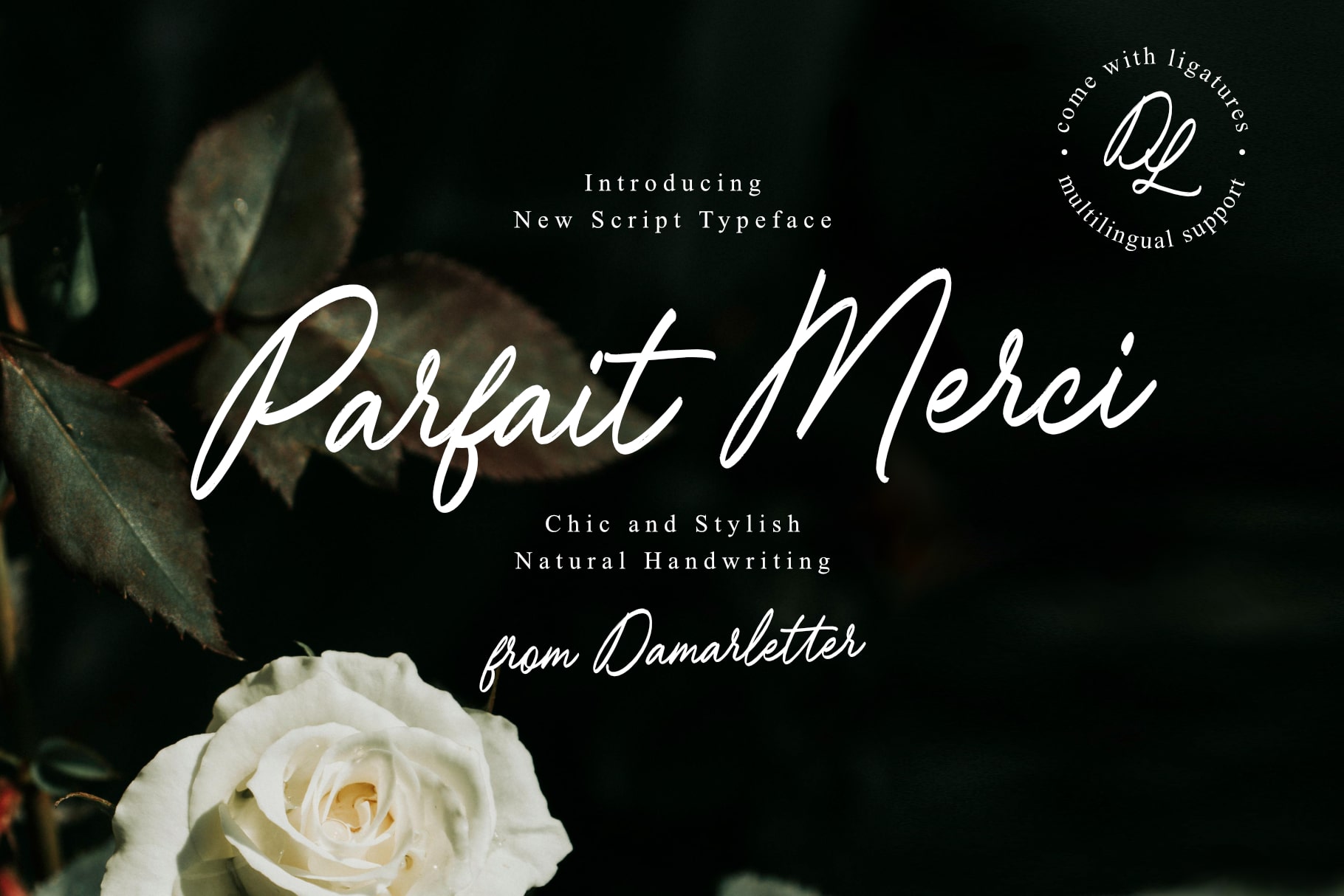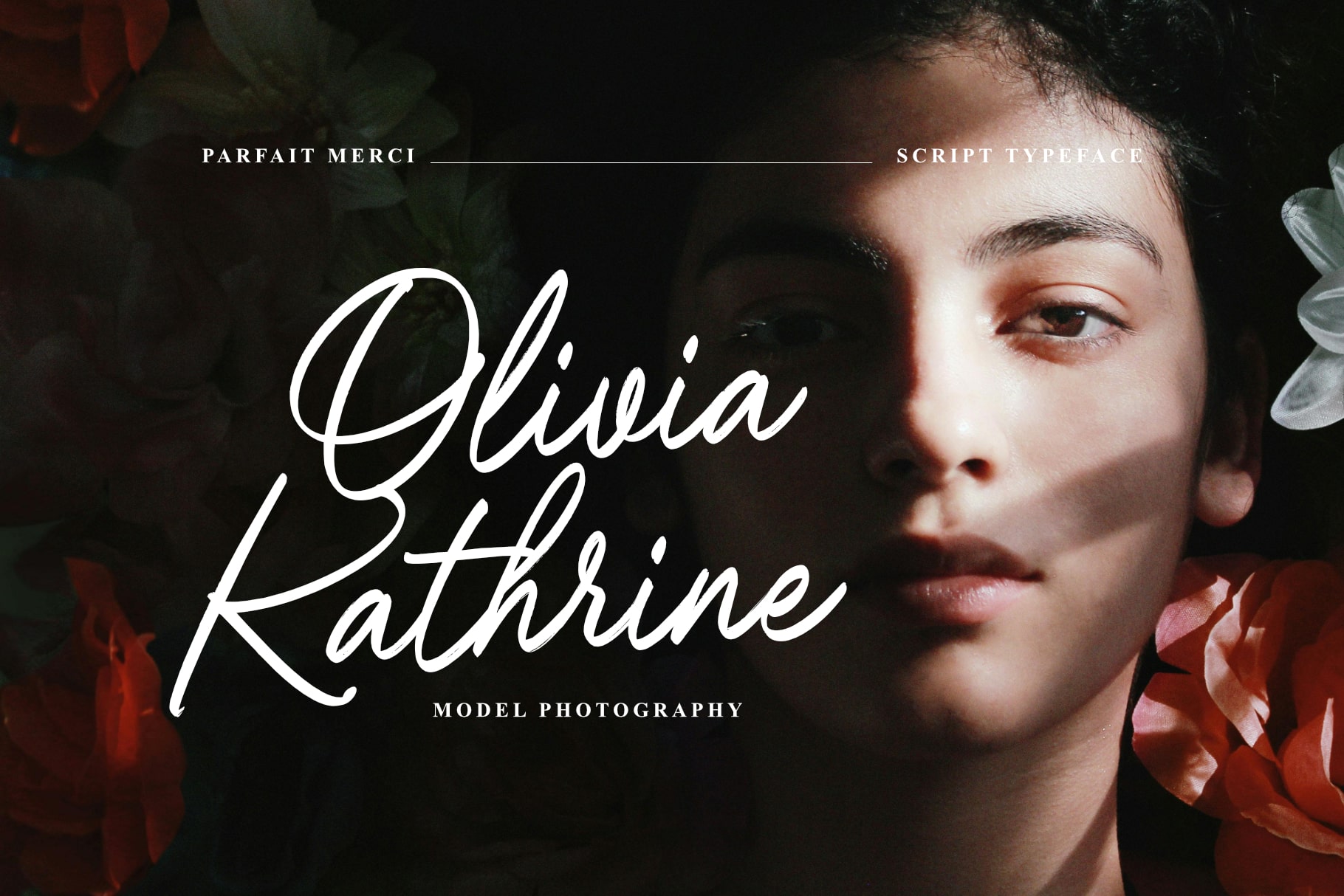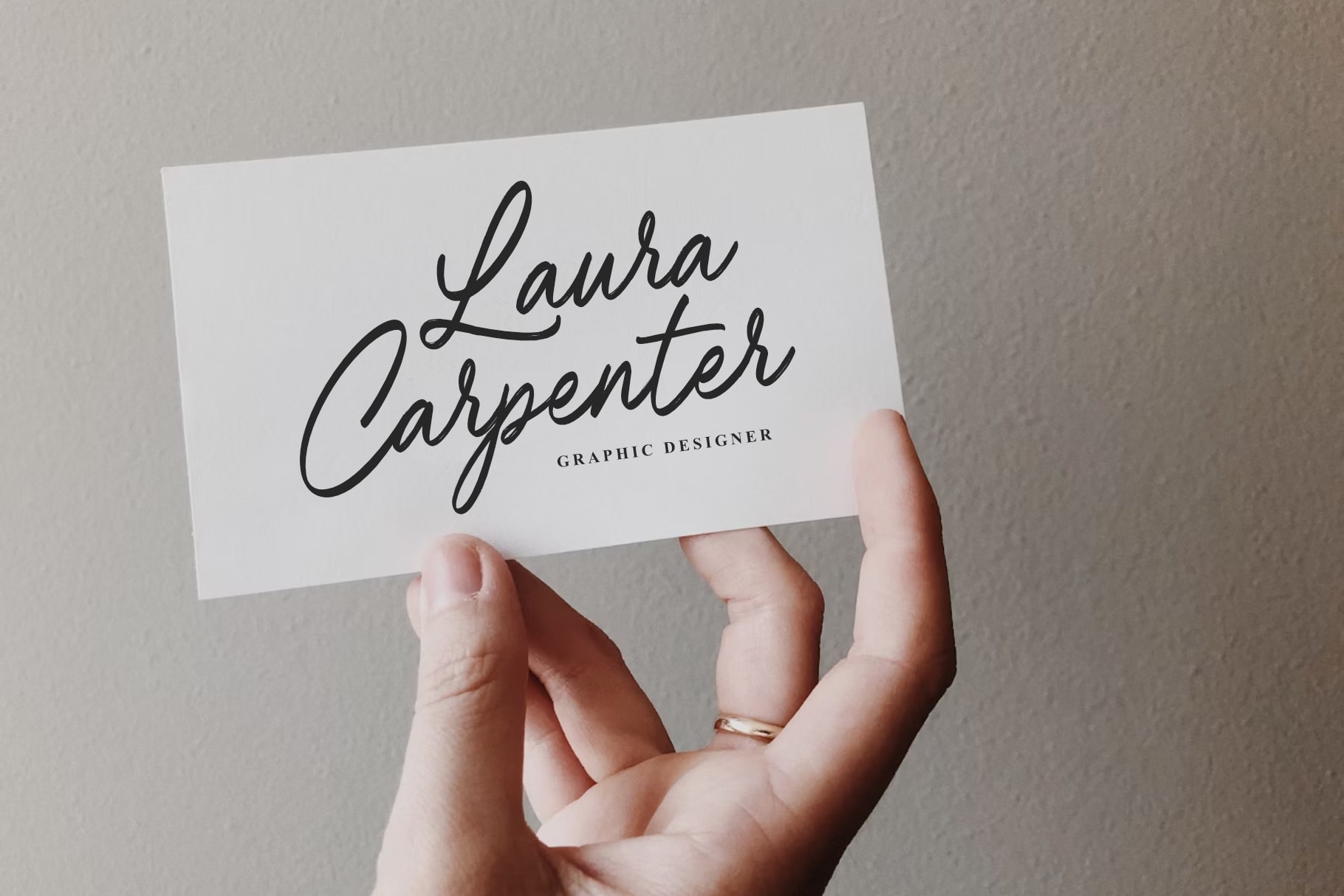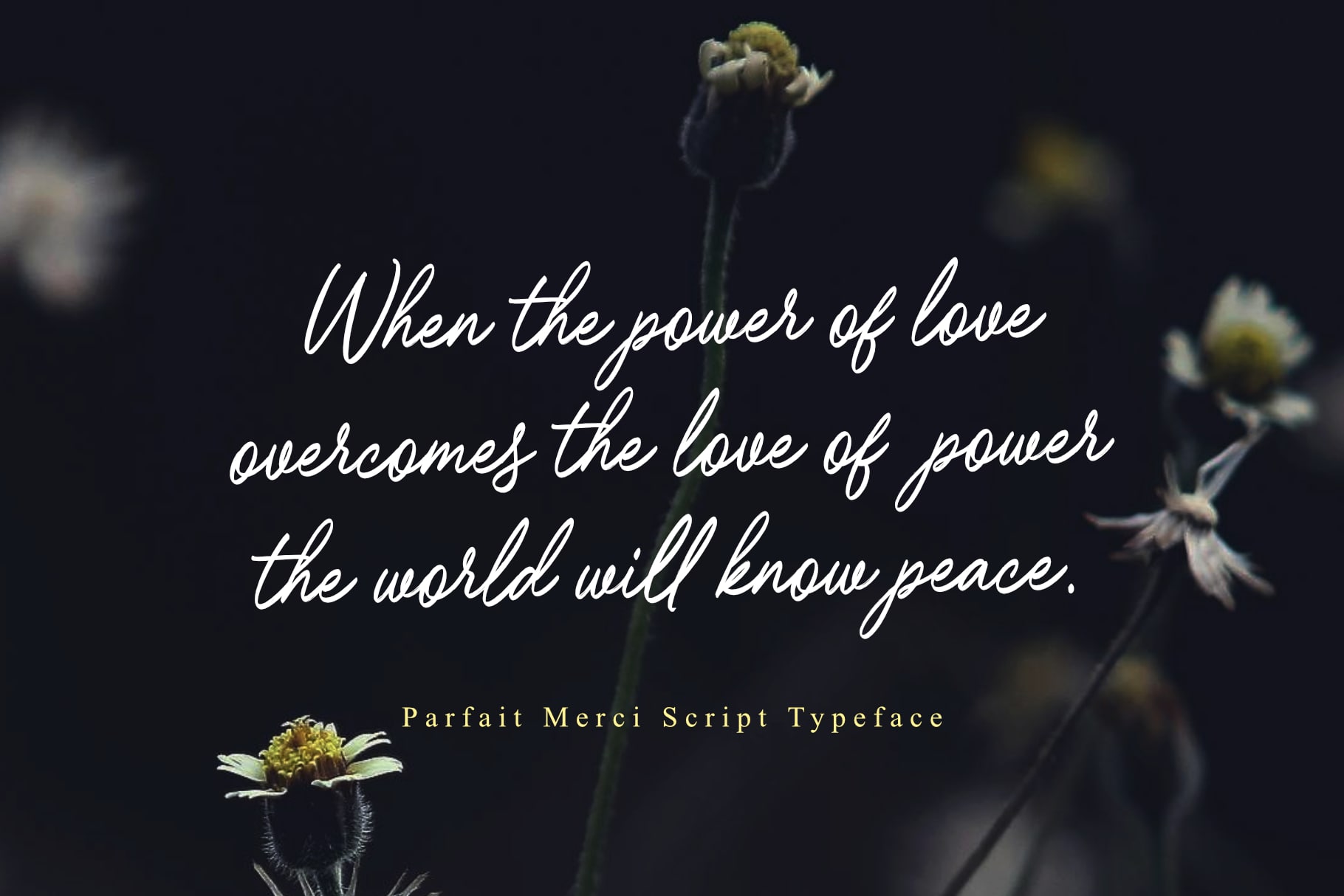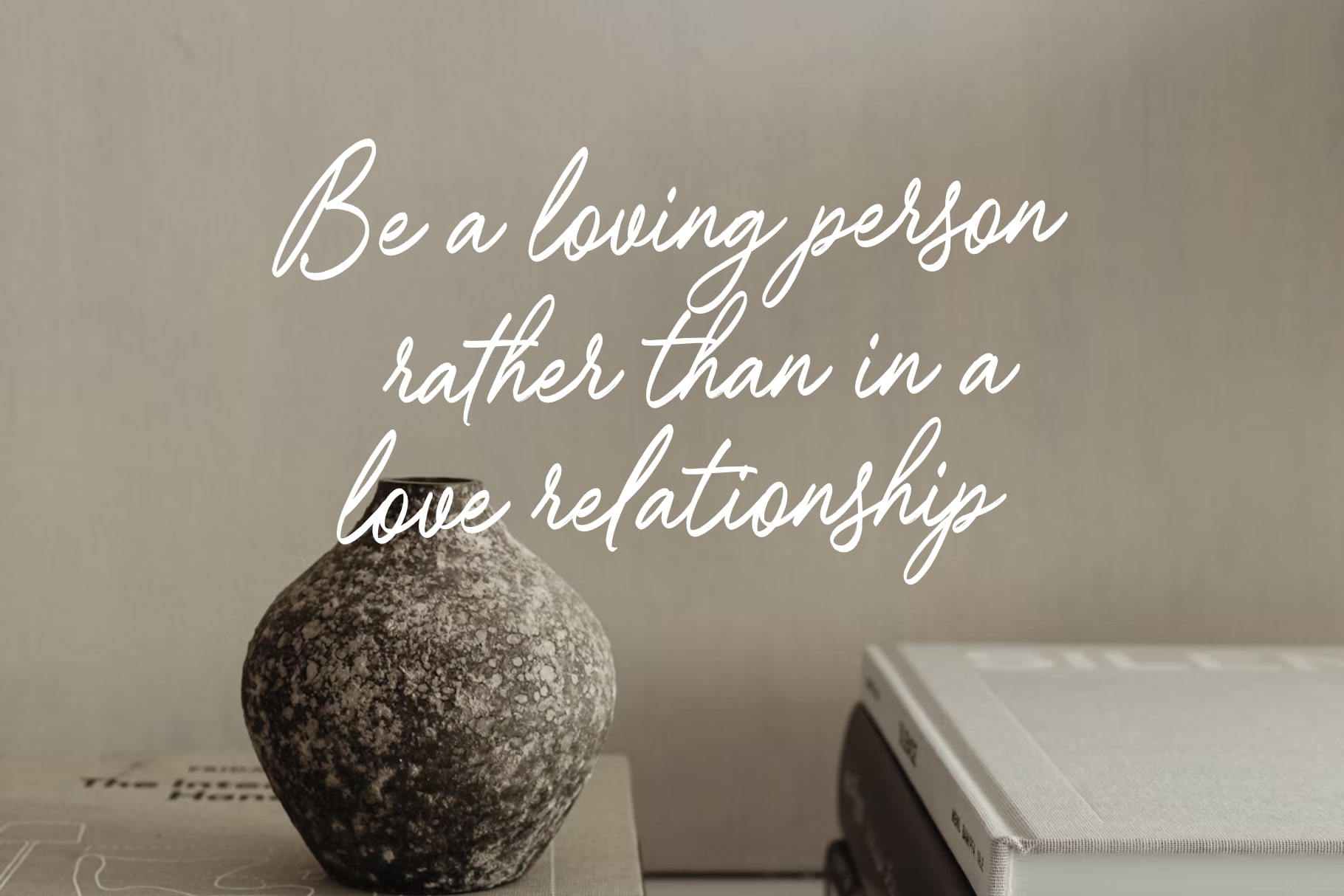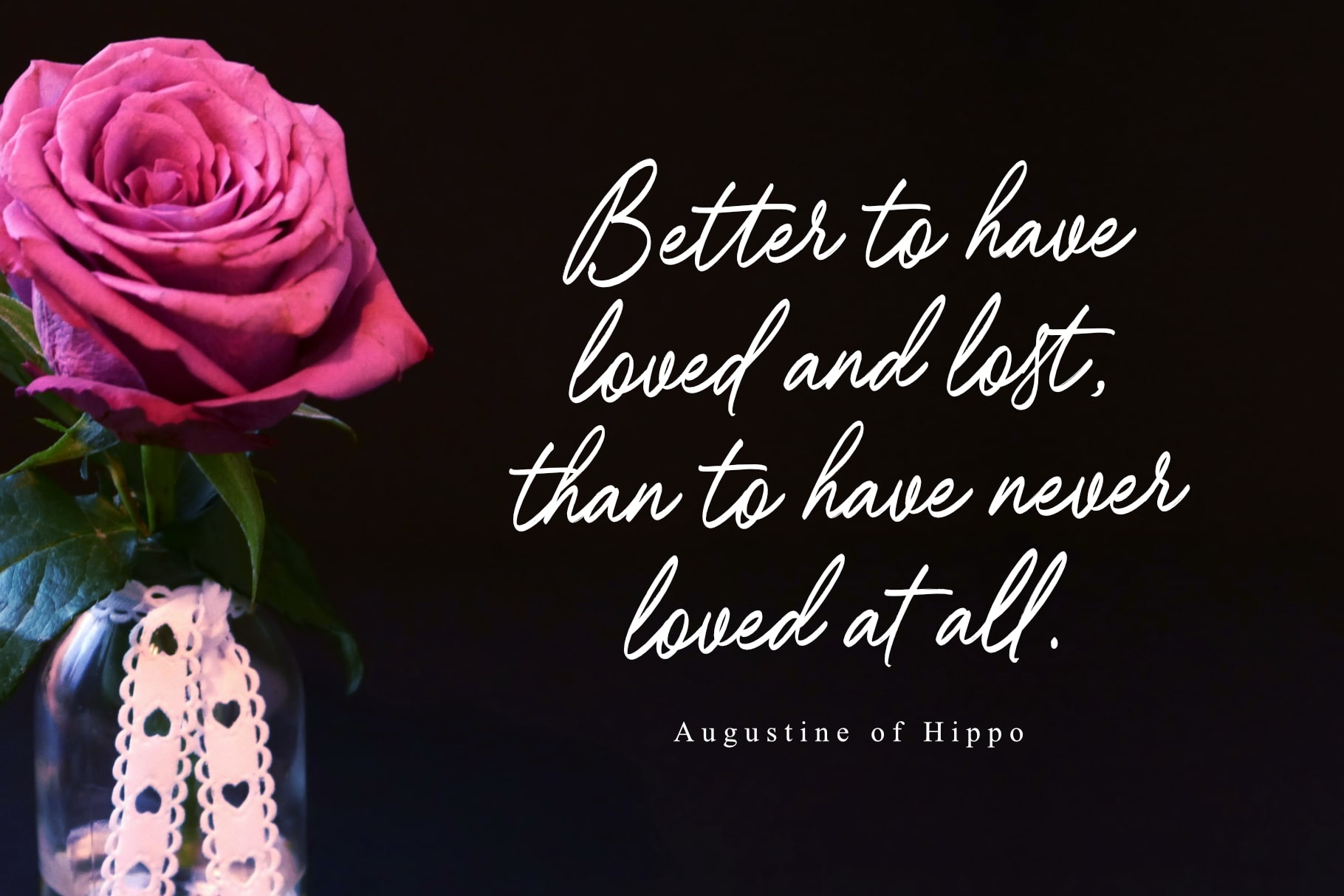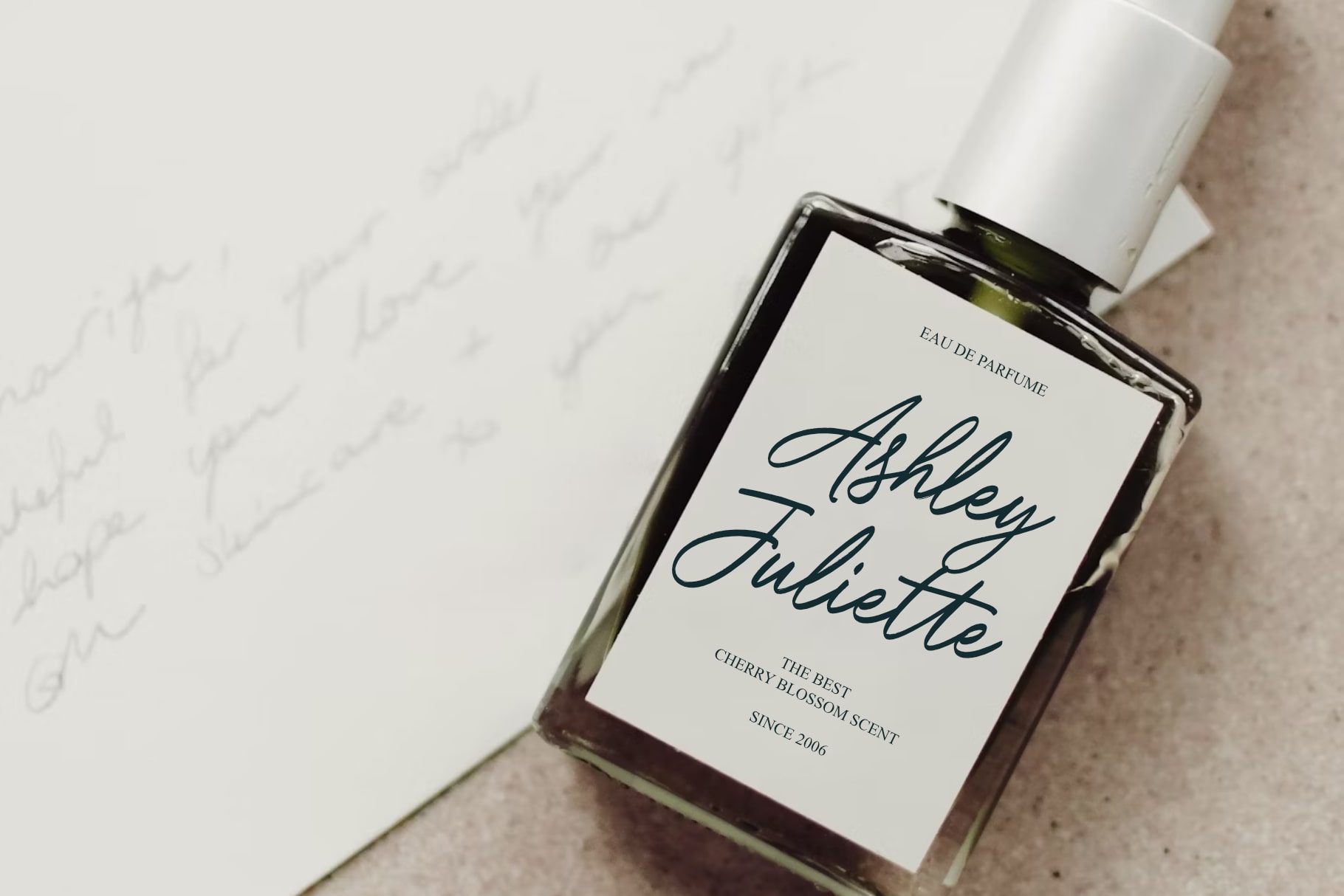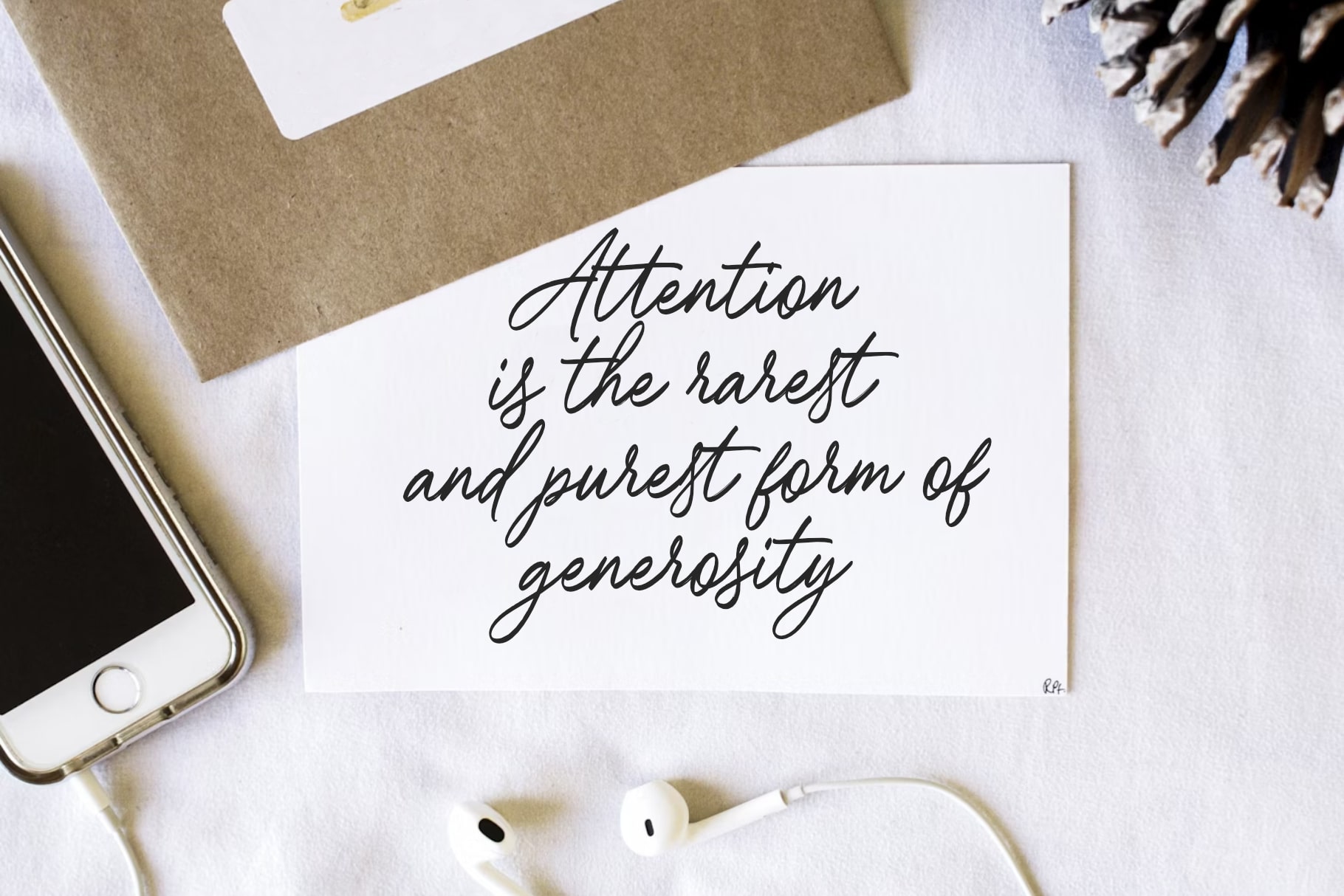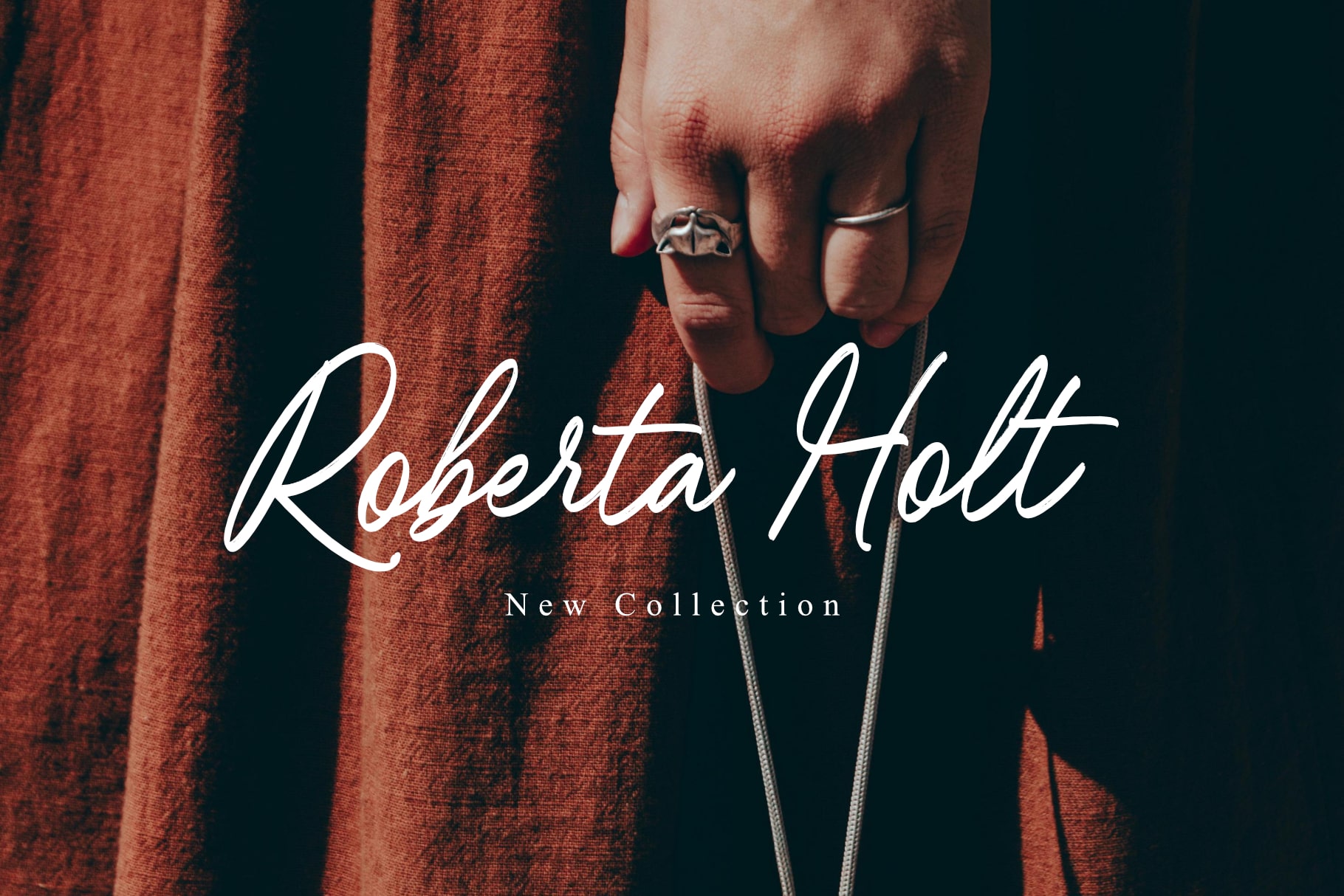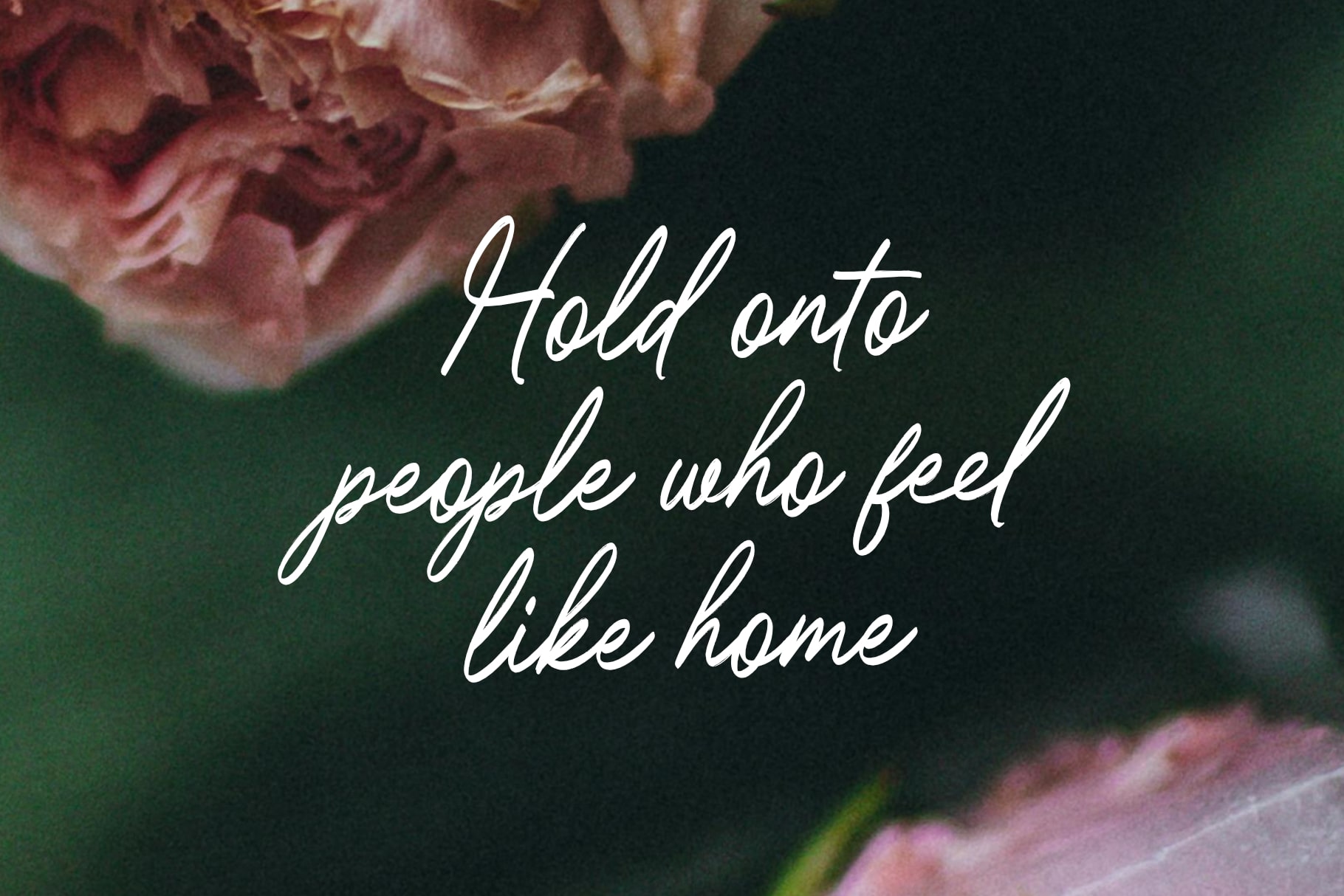
- Parfait Merci handwriting script
Parfait Merci is a chic and stylish natural handwriting script font that exudes elegance and sophistication. With its fluid, organic strokes and impeccably balanced letterforms, this font captures the essence of effortless style and refined handwriting. Perfect for projects that require a touch of modern luxury, Parfait Merci brings a sense of grace and poise to every design.